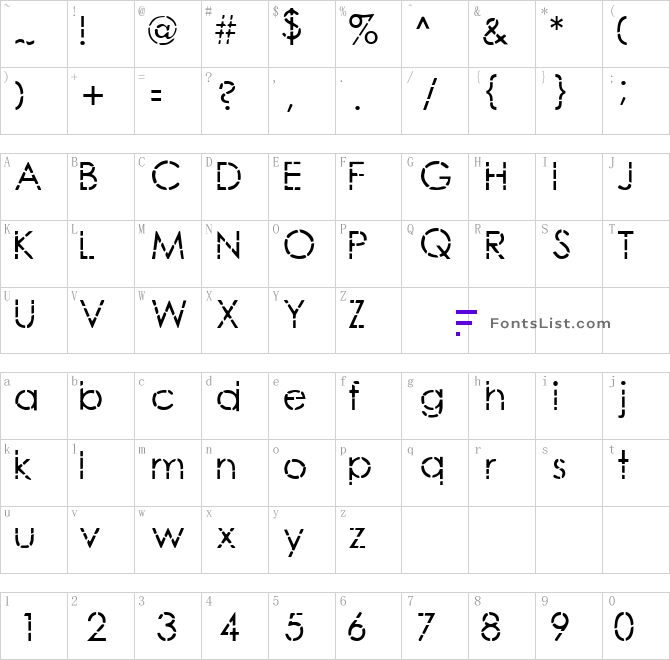
- Font Name:AnniesStitches
AnniesStitches.ttf is a very beautiful artistic font, AnniesStitches.ttf is widely used in the design and printing of various books and pictures,AnniesStitches.ttf has a strong visual impact,AnniesStitches.ttf is a commonly used font in newspapers, magazines and books, and is used in posters, e-commerce Poster design, store design, logo design, font design and other fields.AnniesStitches.